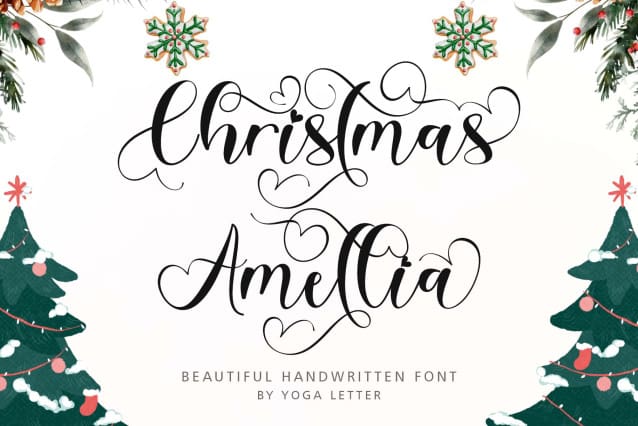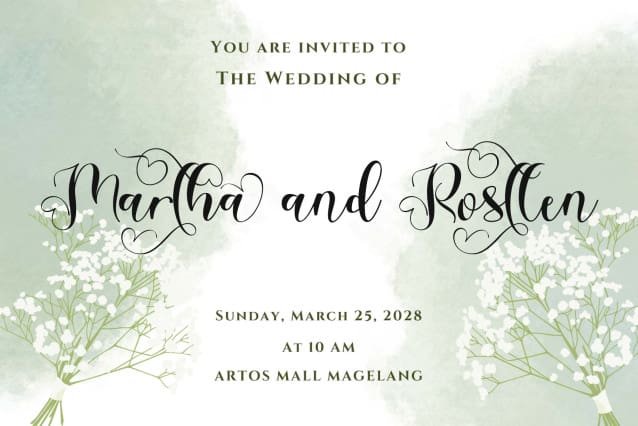
Christmas Amellia Font
Christmas Amellia Font is a beautiful and charming handwritten font. It comes with capital letters, lowercase letters, ligatures, numbers, punctuation, multilingual support, swash alternatives, and more. It is perfect for use on Christmas, weddings, invitations, Valentine’s, photography, and more.